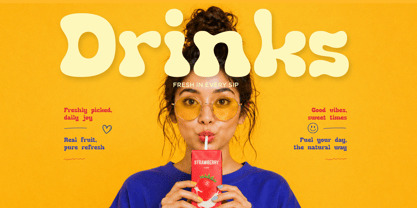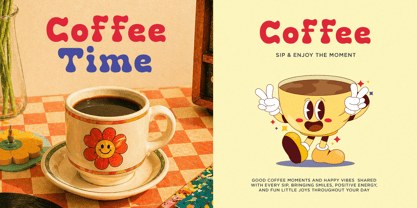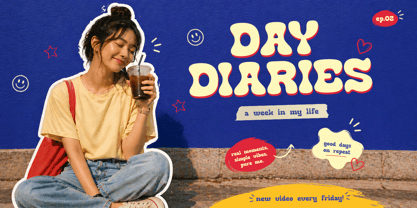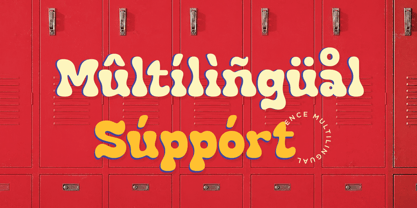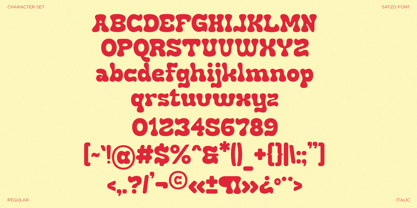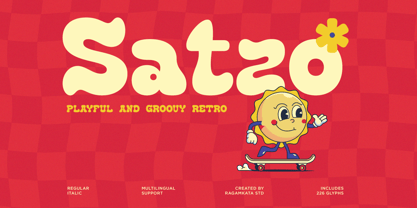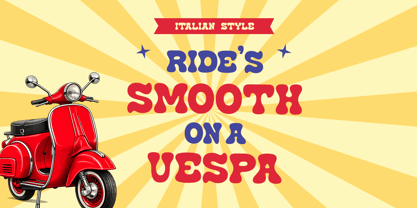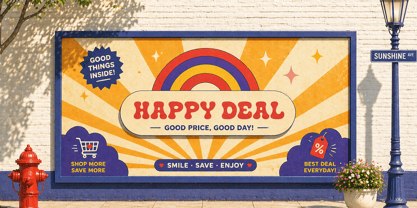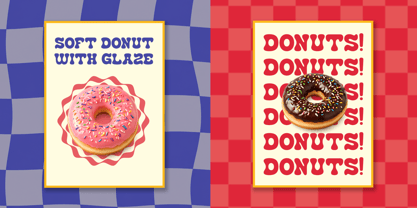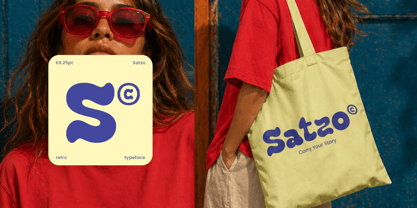
Satzo
by RagamKata
The Satzo Font Family was designed by Yogiswhara Dio Prakoso Riadi and published by RagamKata. Satzo contains 2 styles and family package options. More about this family
Satzo is a playful retro display font bursting with groovy energy and nostalgic charm. Inspired by the bold visual culture of the 70s, funky poster typography, vintage packaging, and cheerful branding aesthetics, Satzo brings an instantly recognizable personality to any creative project. Its chunky bubble letterforms, smooth curves, and whimsical character make it ideal for designs that need warmth, fun, and standout visual impact.
Perfect for retro branding, food packaging, kids products, music posters, festival artwork, merchandise, social media graphics, YouTube thumbnails, logo concepts, sticker designs, cafe branding, comic titles, playful editorial layouts, and vintage-inspired promotional materials. Satzo balances readability with expressive personality, making it highly versatile for both digital and print applications where attention-grabbing typography matters.
Whether you're creating nostalgic branding, funky apparel graphics, colorful packaging, or eye-catching marketing visuals, Satzo delivers a bold retro vibe that feels both timeless and commercially appealing.